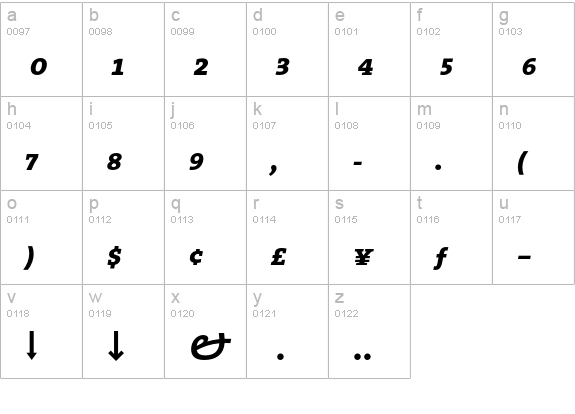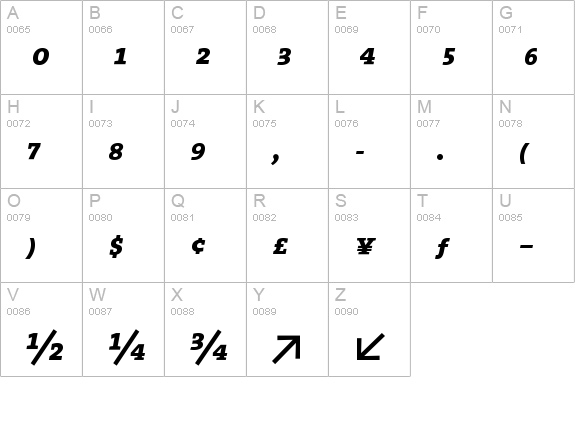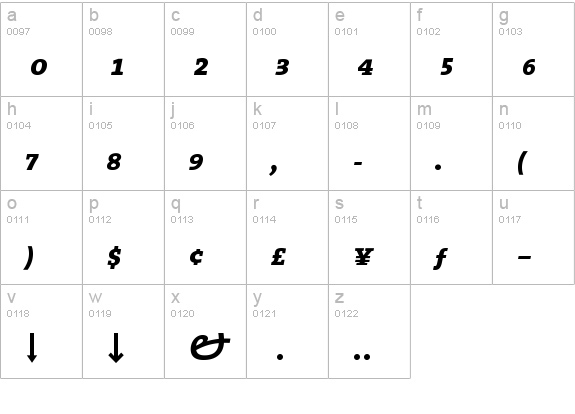
TheSerif Bold Expert Italic Font Details
TheSerif Bold Expert Italic is a strong, high-contrast, italic variant in the TheSerif typeface family \xE2\x80\x94 well suited to headlines, attention-grabbing titles, and strong calls-to-action.
TheSerif Bold Expert Italic font is a bold and elegant typeface that exudes professionalism and sophistication. Its expertly crafted italic design adds a touch of grace and finesse to any text, making it perfect for projects that require a sense of refinement and elegance. With its clean and well-defined letterforms, TheSerif Bold Expert Italic font stands out with its confident and commanding presence. The bold weight of the font gives it a strong and impactful appearance, making it ideal for headlines, titles, and other prominent text elements. One of the standout features of TheSerif Bold Expert Italic font is its versatility. It effortlessly adapts to various design styles and contexts, making it suitable for a wide range of projects, from branding and advertising to editorial and web design. Whether you're creating a sleek corporate brochure or a high-end fashion magazine, this font will add a touch of sophistication and professionalism to your work. What makes TheSerif Bold Expert Italic font even more impressive is that it is available for free download at FontsMarket.com. This means that you can easily access this beautiful typeface without any cost, allowing you to enhance your designs with a top-quality font without breaking the bank. So, if you're looking to elevate your design projects to new heights, TheSerif Bold Expert Italic font is definitely worth considering. With its impeccable design, versatility, and the added bonus of being freely available, this font is a valuable asset for any designer or creative professional.